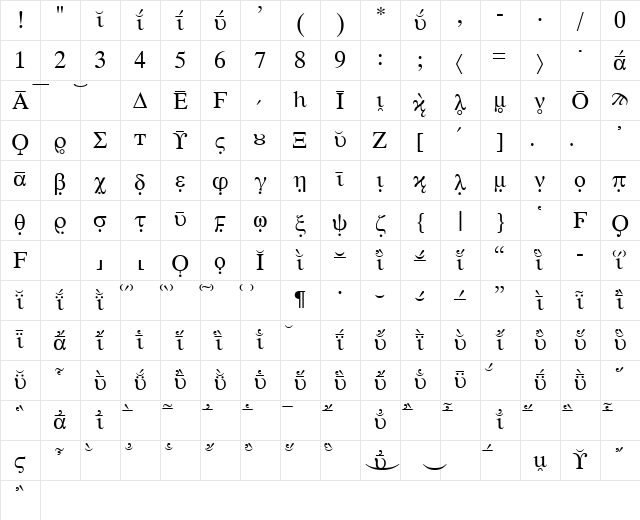
HellenicaExtras Regular
Design Context for HellenicaExtras
HellenicaExtras is a composed and adaptable typeface that performs quietly and consistently across a wide range of design contexts.
Pro Tip: Use HellenicaExtras in both headline and body roles to test its range before committing to a single application.